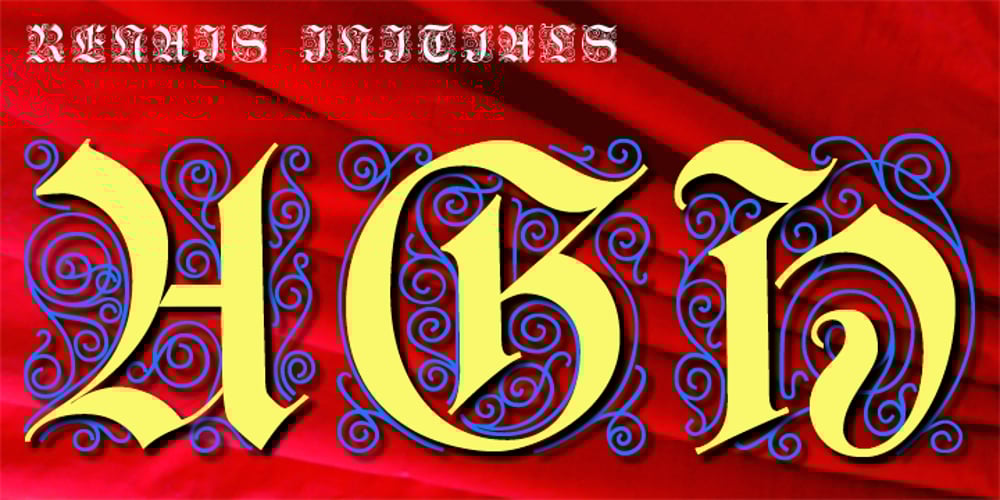
Renais Font Family was designed by Gert Wiescher and published by Wiescher Design. Renais contains 1 styles and family package options. Renais is a set of Renaissance Initials. The embellished letters are on the keys A through Z. The letters without embellishments are on the lowercase letters a through z. The embellishments without the letters are in alphabetical order on the following keys: 1234567890!§$%&/()=?,.-;:_ You can superimpose the three forms for special effects, they are designed to fit exactly over each other. Have fun! Gert Wiescher – forever discovering old fonts!